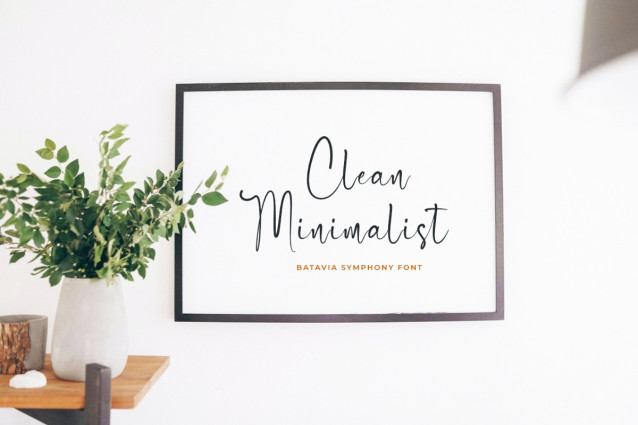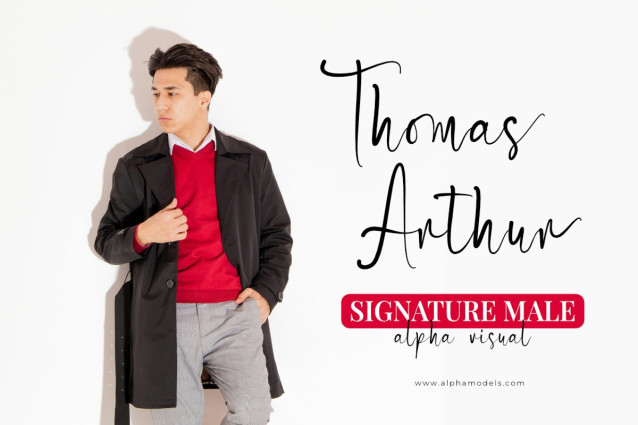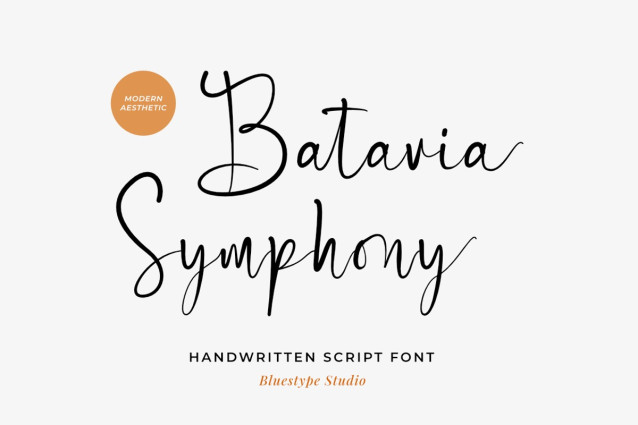
Batavia Symphony Font
Batavia Symphony Font is a modern handwritten script font meticulously crafted to bring the natural fluidity of real penmanship into the digital space. Inspired by rhythmic, expressive brush strokes, this typeface effortlessly balances contemporary style with timeless elegance.
With its organic connections and clean, sweeping curves, Batavia Symphony feels alive on the page. It transforms ordinary text into a beautiful visual statement, making it the perfect choice for creators who want to add a high-end, bespoke touch to their branding.